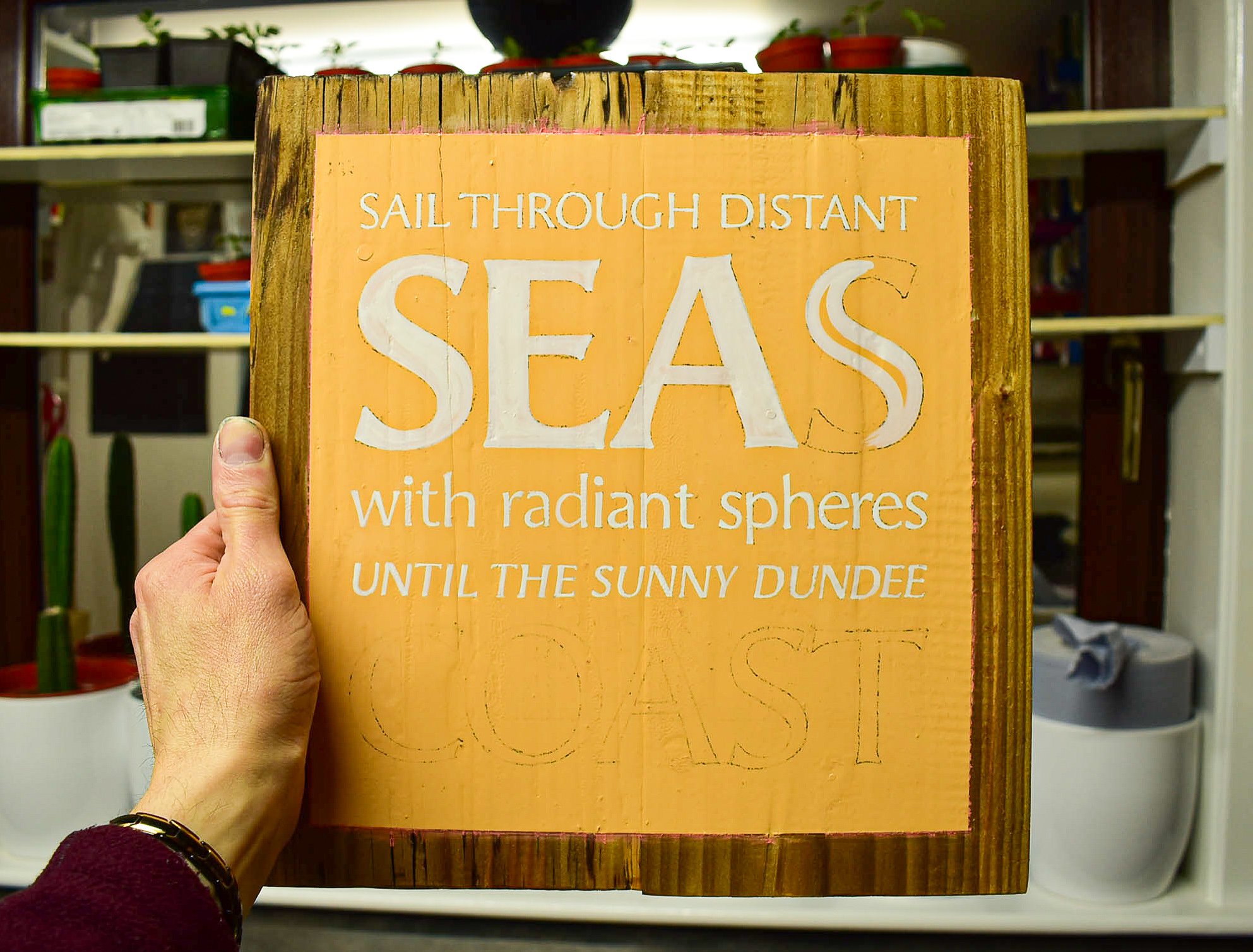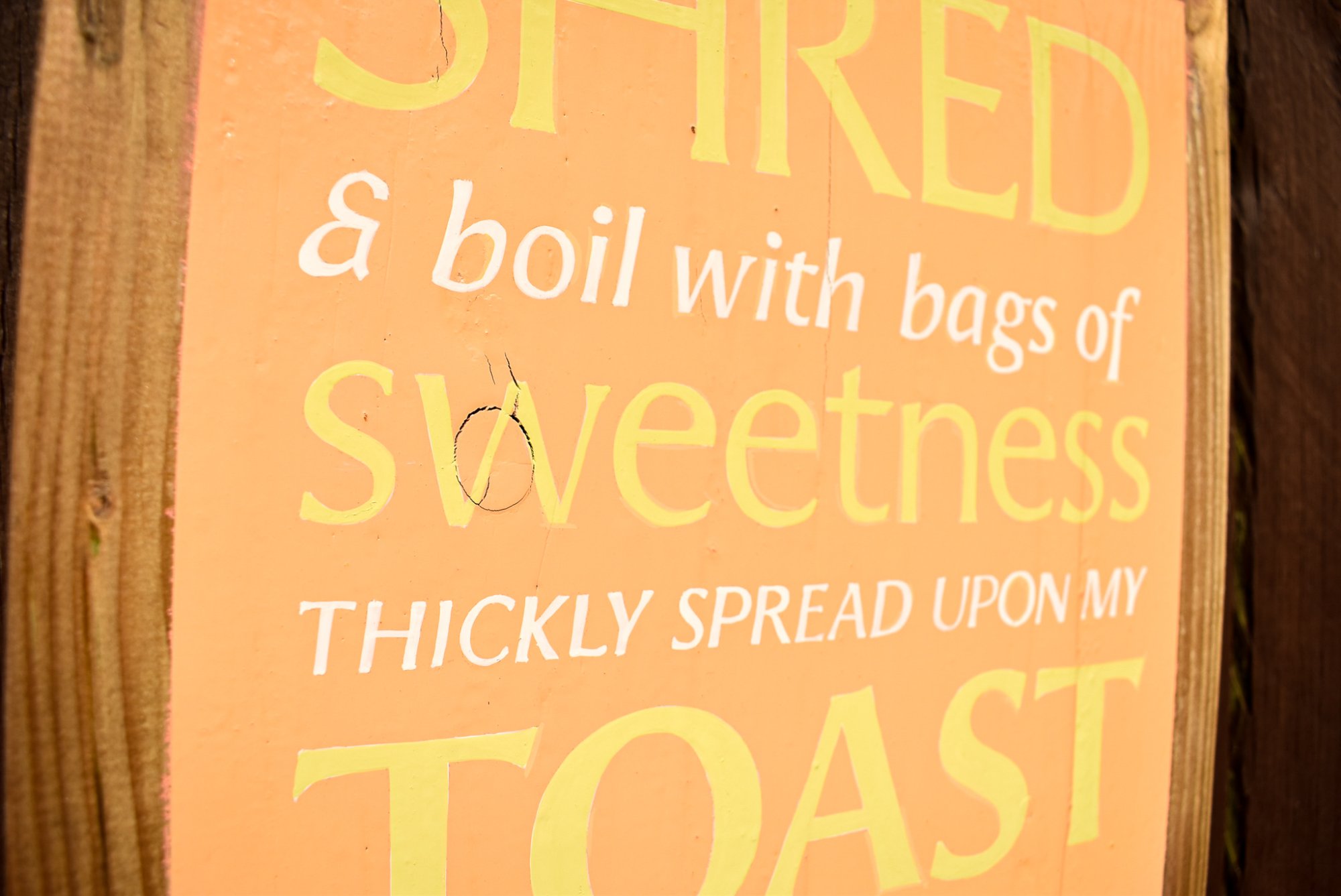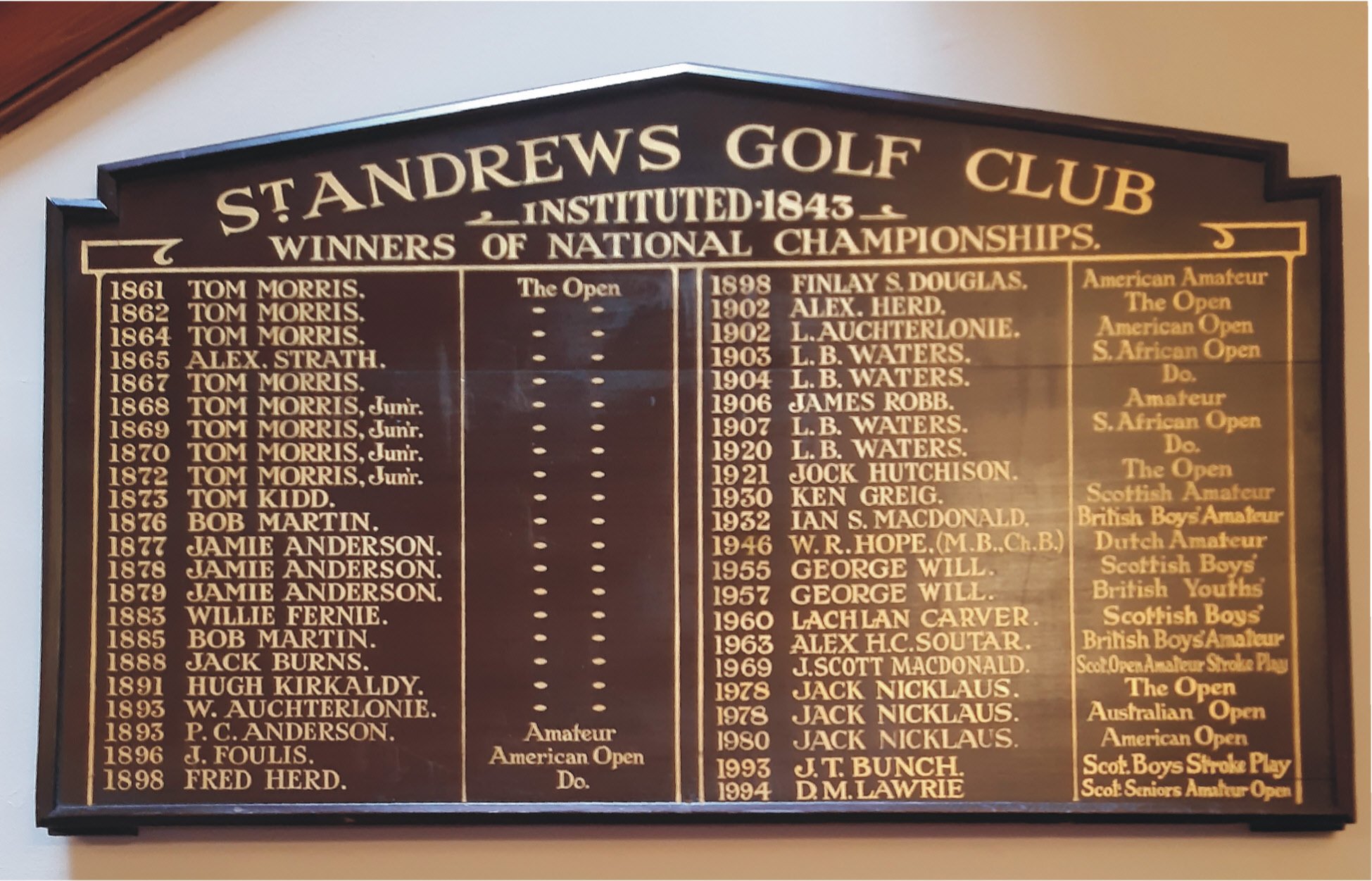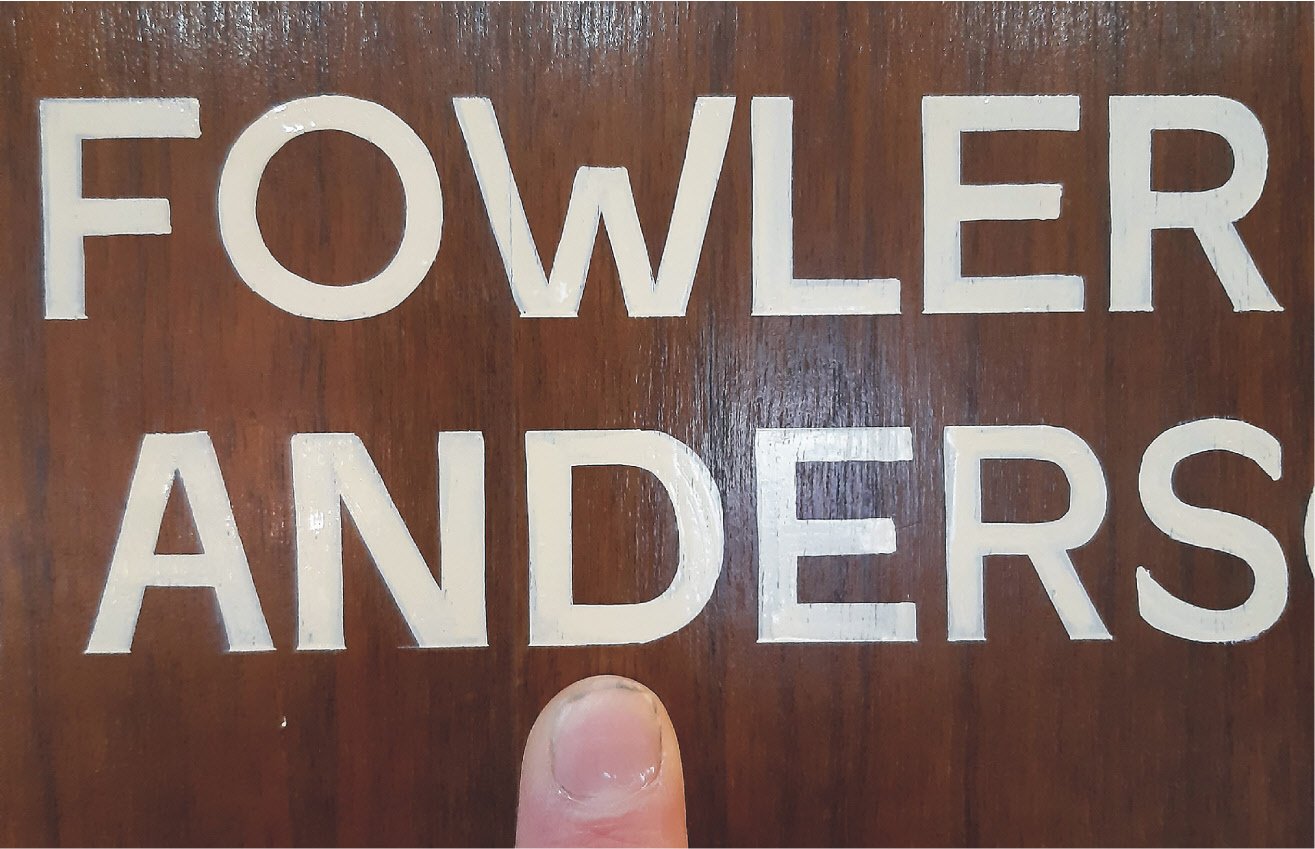
Over the years, I've visited this forum and enjoyed reading and learning as well as understanding aspects of the craft which were (and still are) a puzzle.
As a recent member, I have some questions I feel compelled to ask. Beginning with hand lettering small sans serif and Roman caps and lower case, up to 1" height.
I've searched the forum and I'm curious if anyone would like to share tips, techniques and advice for; their choice of brush (size, synthetic or natural hair, etc.), thinning of enamel, layout and painting with size before gilding with transfer leaf.
My query is inspired by recent projects involving small lettering on honours boards. In addition to a potential project soon, to hand letter two columns of around twenty names at approximately 1" height and in gold leaf.
I attach three photos of my small painted sans. Two photos show lettering after pouncing and the other was painted without a layout. As well as a photo of the columns of gold leaf lettering I've been asked to provide a quote for.
#1. I've searched the forum and I'm curious if anyone would like to share tips, techniques and advice for; their choice of
Q. brush size
A. Choose brush based on stroke thickness, 1/2 to 3/4 of the letter stroke width.
Q. synthetic or natural hair
A. Both types work. Your choice based on paint type and or surface needs such as drag, also known as pucker. hair length determines amount of load(paint). Hair thickness is a bigger concern, coarse hair is great for heavy pigmented paint, fine hair is great for lettering enamel and or inks.
Q. thinning of enamel
A. Follow manufacturers thinning instructions and types of reducers recommended to make sure enamel doesn't weaken.
Premix paint, if paint begins to pull hair to much or "drag" you may dip half a brush of thinner to reduce drag. Practice will make you more familiar with the process. I use 2 brush loads of paint and 1/2 brush dip of thinner on a glossy or glass palette.
Q. layout
A. Study Calligraphy tips in the Speedball book of lettering, it looks like this layout was drawn with a Stabillo washable pencil, one could also use chalk with a light touch.
Q. painting with size before gilding with transfer leaf.
A. Treat Size like enamel and follow set up times of size and make a sample to answer your question
One final note, Picture 1 was lettered using fine line tape on top and bottom lines only.